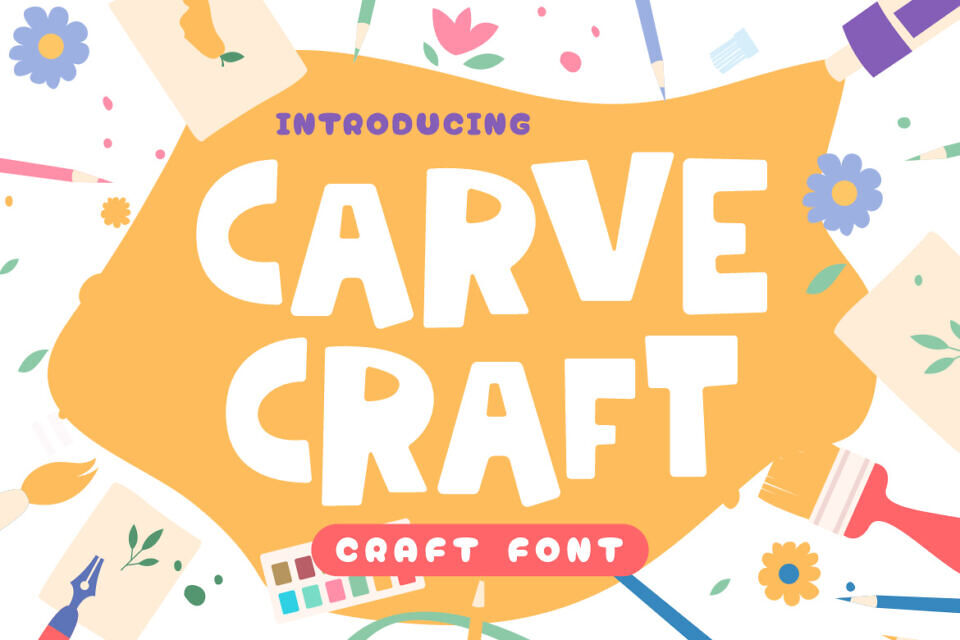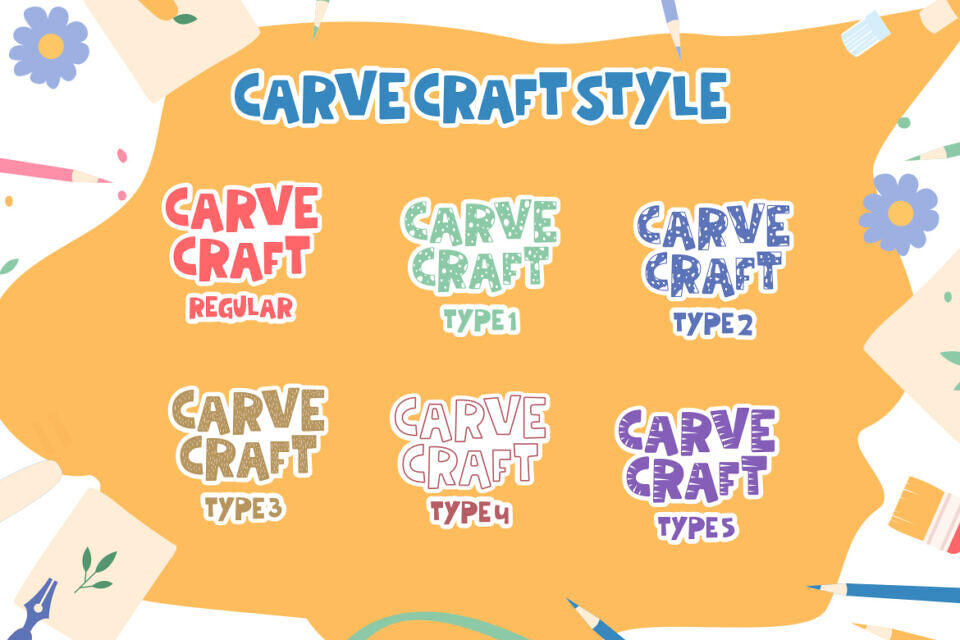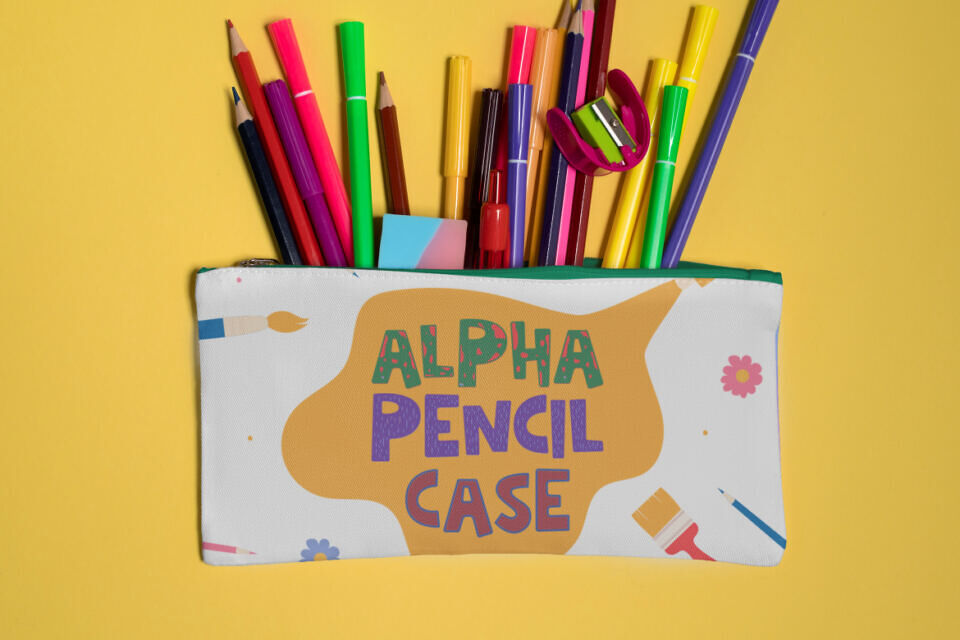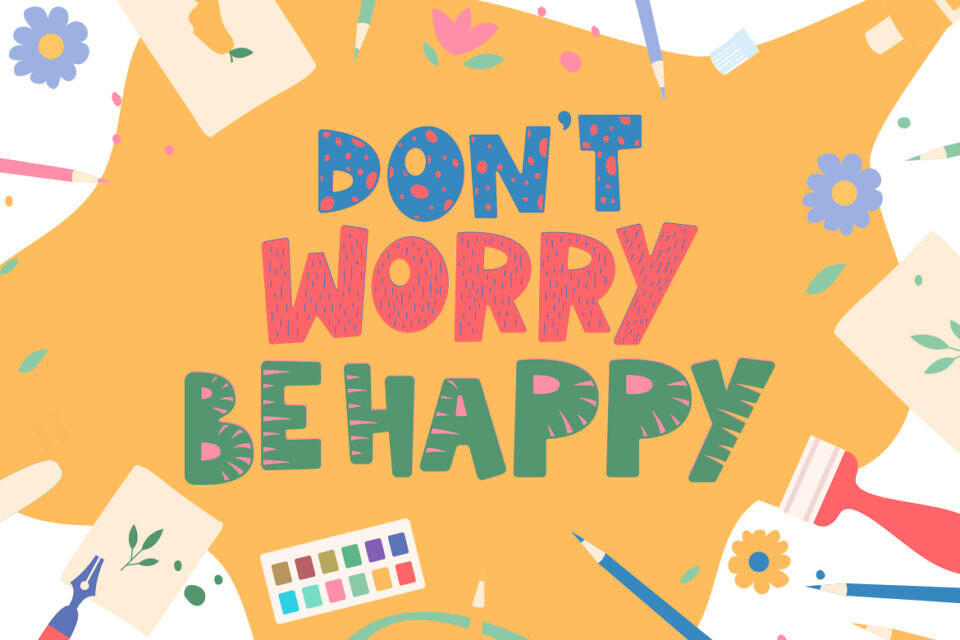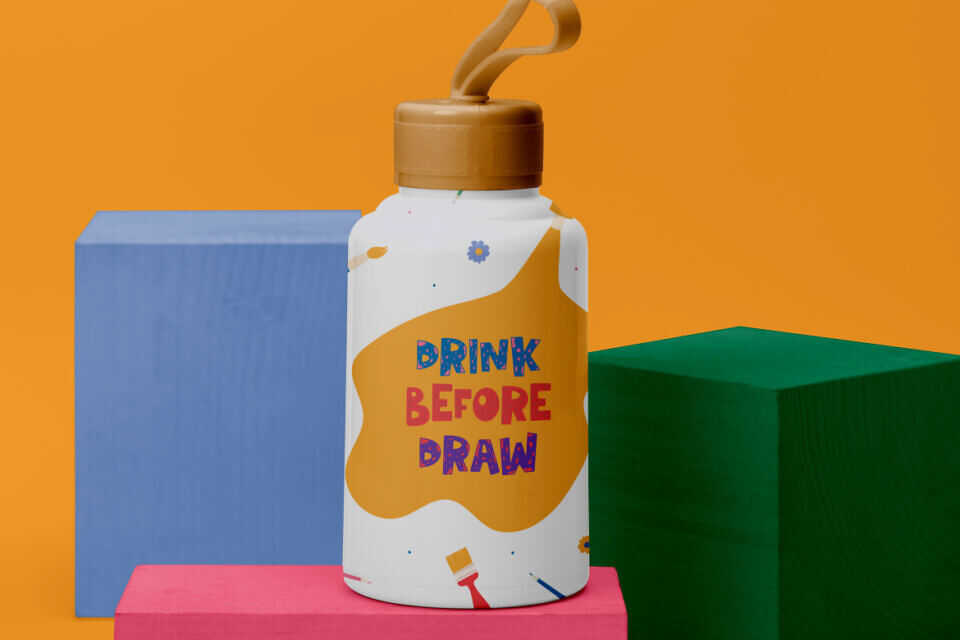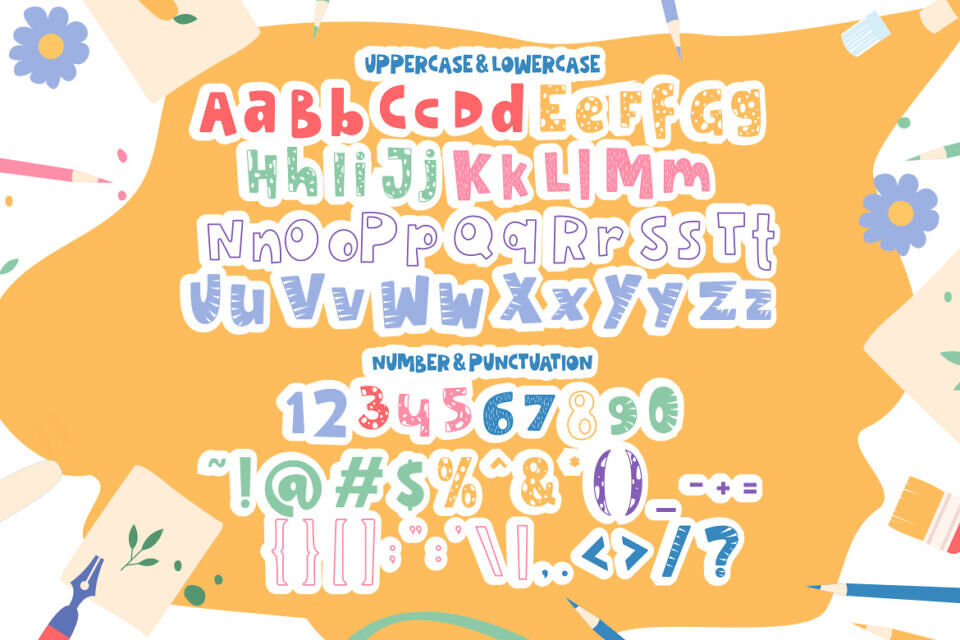
Carve Craft Font Family
Step into the world of creativity with Carve Craft, a typeface that embodies the spirit of handmade artistry. This font is not just a set of characters; it’s a toolbox for imagination, designed to bring your projects to life with its display of fun and playful letterforms.
Each stroke of Carve Craft is infused with the joy of crafting, making it an ideal choice for logos, branding, and any design that calls for a personal touch. With its bold and lively style, this font dances across the page, inviting viewers into a world where creativity knows no bounds.